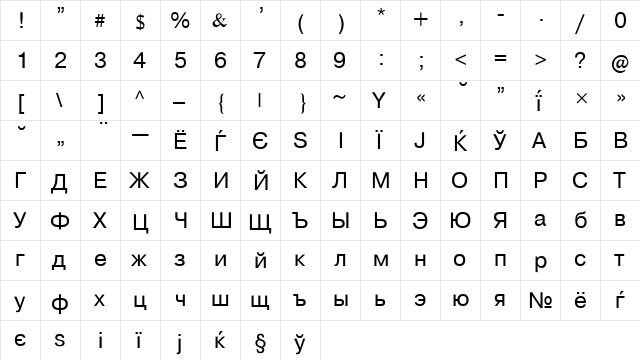
CyrillicHelv Regular
Design Context for CyrillicHelv Typeface
CyrillicHelv offers clean, dependable letterforms without strong stylistic allegiance, making it a practical choice for designers who need flexibility.